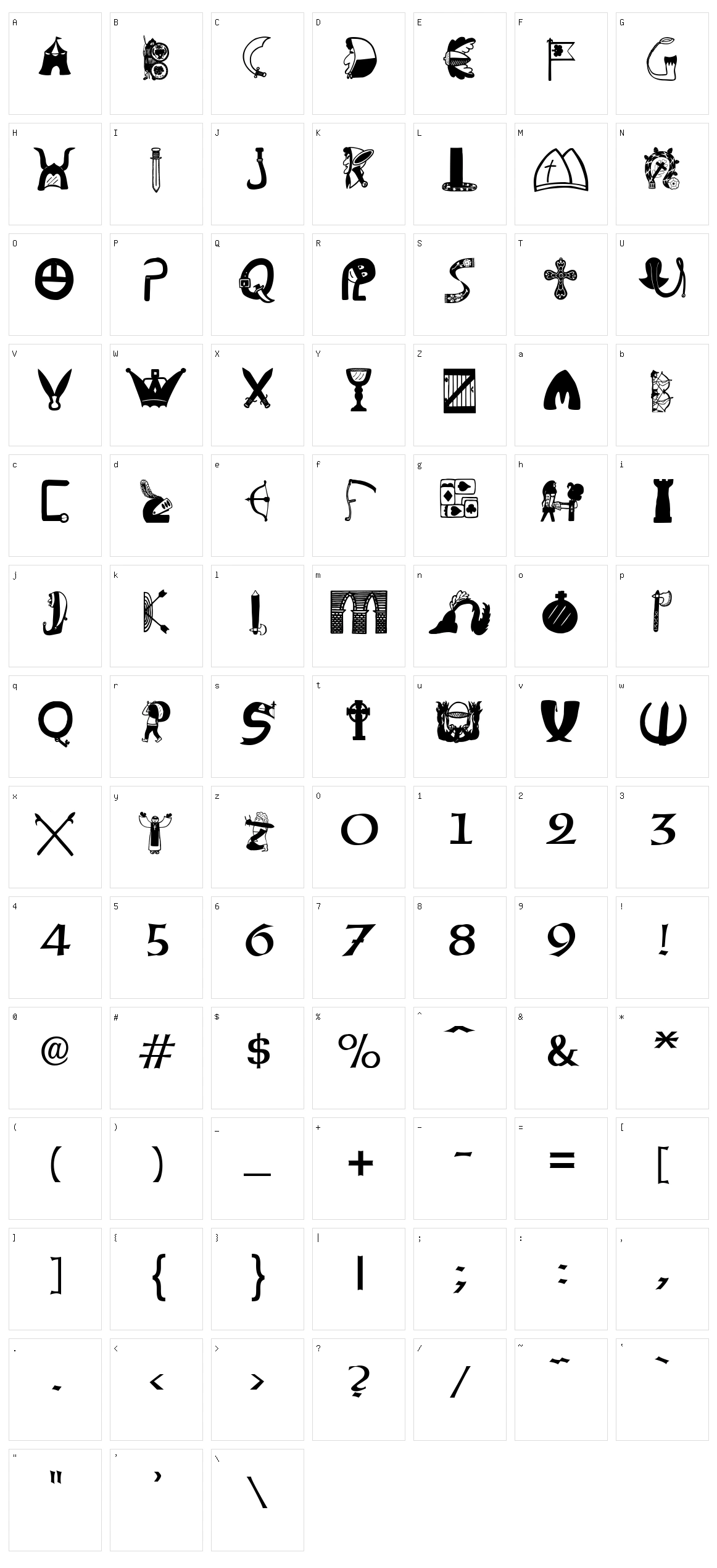
Briaroak Shire v1.0
This version includes 2 sets of uppercase letters, numerals and some punctuation.
Edward Buri created this font for use in Medieval posters and festival paraphenalia. The original idea was to create two alphabets from his drawings and add a celtic style lowercase from another public domain font. We ended up creating just one font, but using the numerals and punctuation from that public domain font (Gailege).
This font has been a long time in the making. Ed drew them for me many months ago, and asked me if I could have them done by spring. I told him, "certainly." Well, then I got busy with schoolwork and trips all over the country as well as Cuba, never got around to making it. However, something has now happened and somehow I am way ahead in my schoolwork. So I figured I would make good on my promise. A little later than I wanted, but I think it turned out well.
This font, like most of the collaborations between Ed Buri and me is more of a dingbat font than alphabet. That's fine with me (and Ed), though. You can use it for drop caps and stuff.